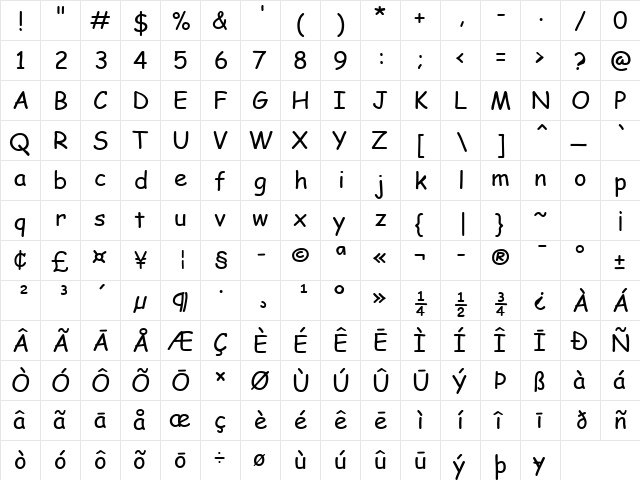
Comic Sans MS M䯲i Regular
Design Context for Comic Sans MS M䯲i Typeface
Comic Sans MS M䯲i trades formality for fun, with bouncy, characterful letterforms that bring warmth and energy to any project.
Font Pairing: Pairs well with a rounded or humanist sans for body copy, maintaining the friendly tone without relying on Comic Sans MS M䯲i to carry extended reading.
Pro Tip: Use Comic Sans MS M䯲i at larger display sizes where its expressive character can land. Pair with a clean, simple sans for body copy to maintain readability.